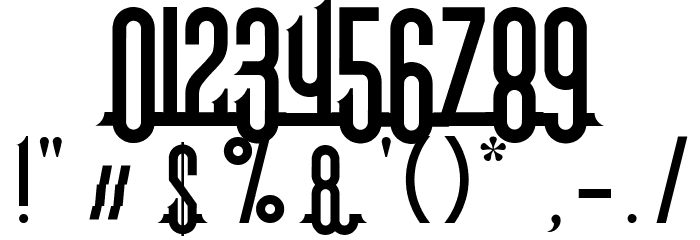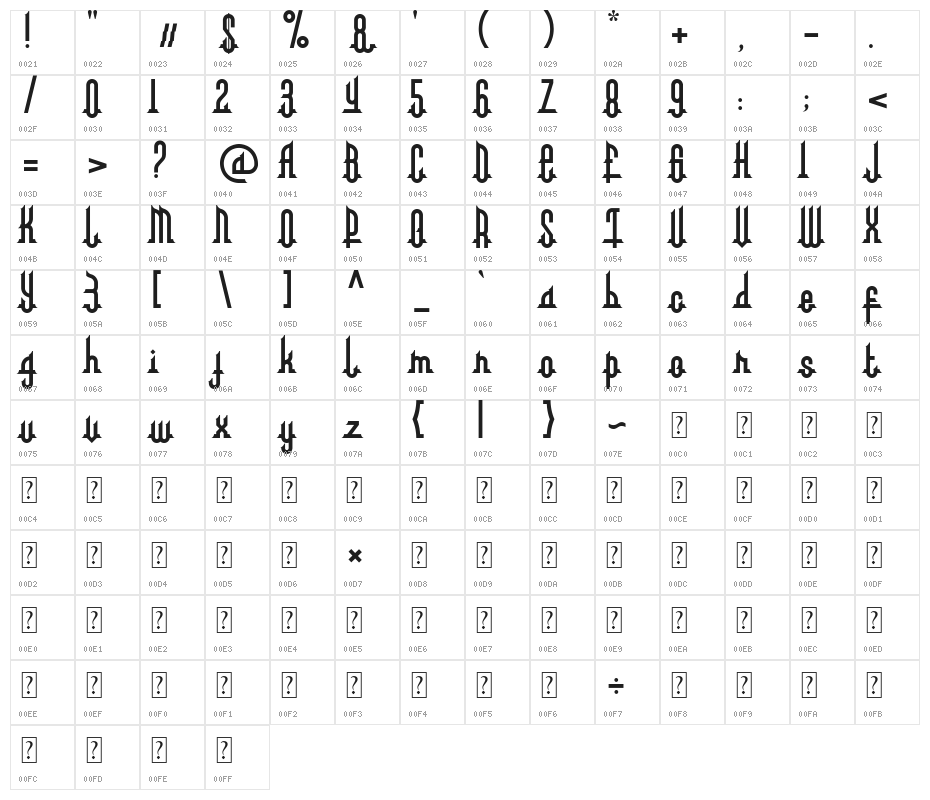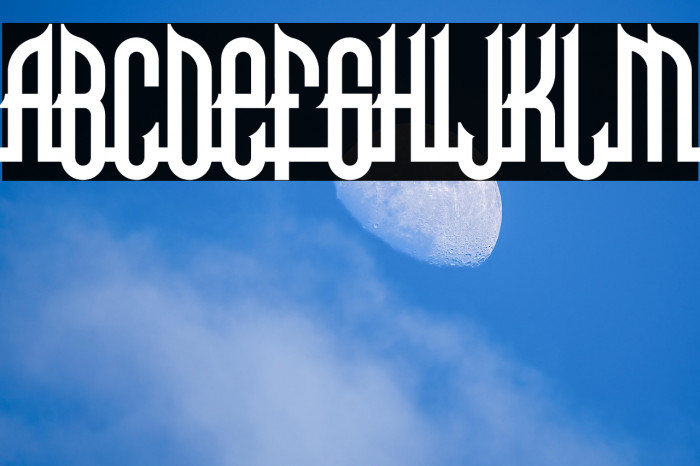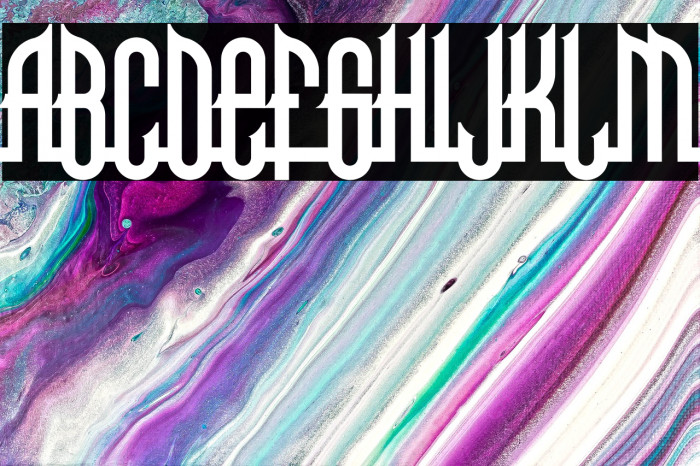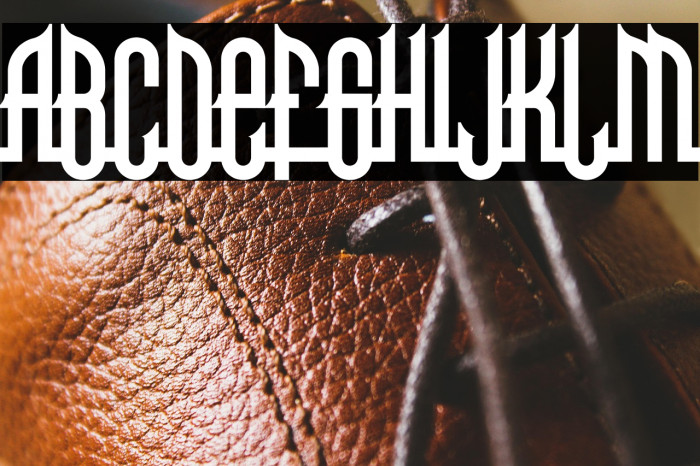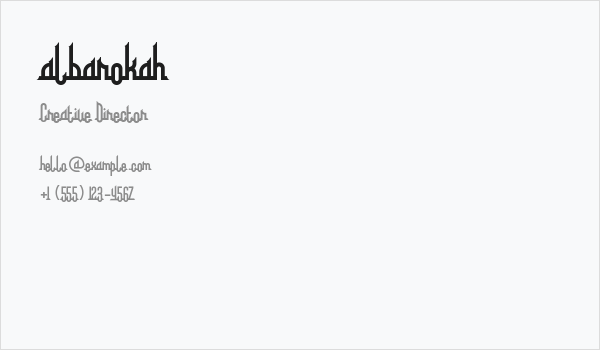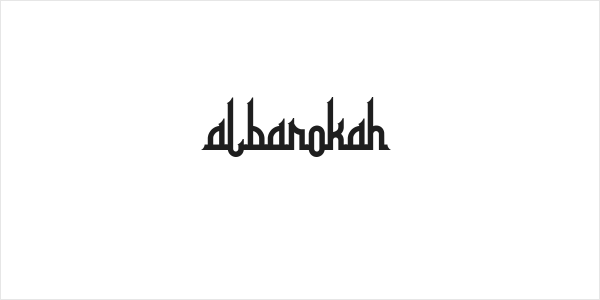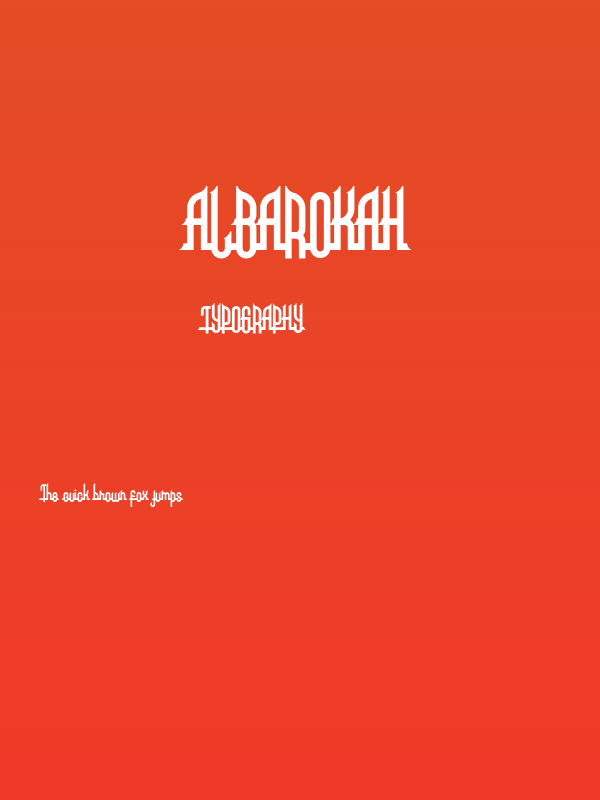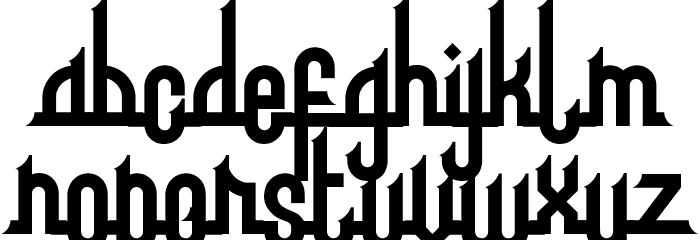
albarokah Font
albarokah Description
This font features a unique and bold design with a strong vertical emphasis. The characters are elongated and have a distinct geometric style, creating a modern and edgy appearance. The uppercase letters are particularly striking, with sharp angles and a high contrast between thick and thin strokes. The lowercase letters maintain the same geometric style but are slightly more rounded, providing a nice balance. Numbers and special characters follow the same design principles, ensuring consistency throughout. This font is ideal for making a statement and grabbing attention.
Proposed ProjectsThis font is perfect for branding, poster design, album covers, and any project that requires a bold and modern aesthetic.